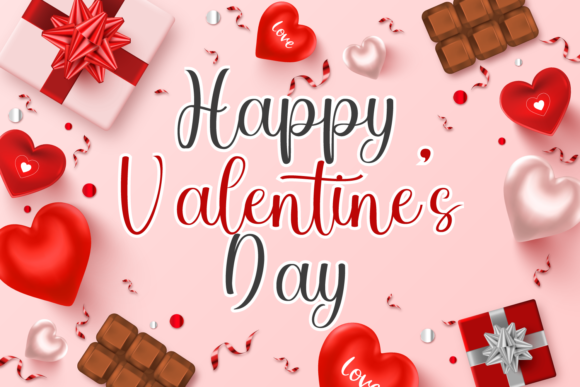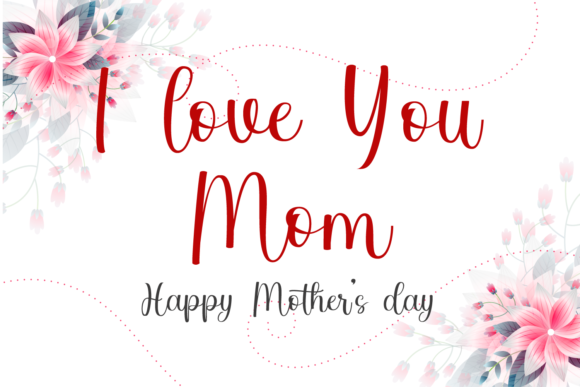
Discover the Charming Anisya Margaret Font: Elevate Your Designs with Playful Elegance
Are you on the hunt for a font that adds a touch of whimsy and playfulness to your designs? Look no further than the Anisya Margaret Font. This lovely script font is characterized by its charming, dancing characters that seem to leap along the baseline, infusing your creative projects with a sense of joy and elegance. In this article, we’ll dive into the world of Anisya Margaret, exploring its unique features, uses, and benefits for designers and crafters alike.
The Unique Charm of Anisya Margaret
Anisya Margaret is not just any font; it’s a script font that brings a level of sophistication and charm to any project. Its characters are meticulously designed to have a playful, dancing quality, which gives text a lively and dynamic appearance. This font is perfect for designers and crafters who want to add a personal touch to their work, making it stand out in a sea of more conventional typography.
Key Features of Anisya Margaret Font
- Playful and Elegant: Anisya Margaret strikes the perfect balance between playfulness and elegance, making it suitable for a wide range of projects, from wedding invitations to brand logos.
- Unique Character Design: Each character in the Anisya Margaret Font is designed to contribute to the overall sense of movement and charm, ensuring your text never looks static or boring.
- Versatility: Whether you’re working on digital content, print materials, or handmade crafts, Anisya Margaret can adapt to various design needs, adding a touch of personality to your work.
- User-Friendly: The font is easy to use, even for those with basic design skills, allowing anyone to create beautiful text with a professional look.
How to Use Anisya Margaret in Your Designs
Incorporating Anisya Margaret into your projects is straightforward. Here are some ideas to get you started:
- Digital Marketing Materials: Use Anisya Margaret in social media graphics, blog headers, and email newsletters to add a friendly and approachable tone to your brand’s online presence.
- Print Materials: Add elegance to your business cards, brochures, and posters with this charming font, making your printed materials stand out.
- Crafting Projects: Anisya Margaret is perfect for crafters who create handmade cards, scrapbooking pages, or DIY decorations. It adds a personal and whimsical touch to any craft project.
- Web Design: For web designers, Anisya Margaret can be used in website headers, titles, and even short paragraphs to add a touch of warmth and personality to a site.
Tips for Maximizing the Impact of Anisya Margaret
To get the most out of Anisya Margaret, consider the following tips:
- Pair with Complementary Fonts: Combine Anisya Margaret with simpler fonts for body text to create visual interest and hierarchy in your designs.
- Experiment with Colors: Don’t be afraid to play with different colors and gradients to enhance the playful nature of the font.
- Adjust Letter Spacing: Tweaking the letter spacing can further emphasize the dancing effect of the characters, adding to the font’s charm.
| Font Name | Anisya Margaret Font |
| Author | Okara Studio |
Anisya Margaret Font is a versatile and charming addition to any designer’s or crafter’s toolkit. Its unique blend of playfulness and elegance can elevate a wide range of projects, from digital content to handmade crafts. By incorporating Anisya Margaret into your designs, you’re not just choosing a font; you’re adding a touch of whimsy and personality that can make your work truly memorable. So why wait? Explore the creative possibilities with Anisya Margaret today and watch your designs come to life with a playful elegance that’s sure to captivate your audience.